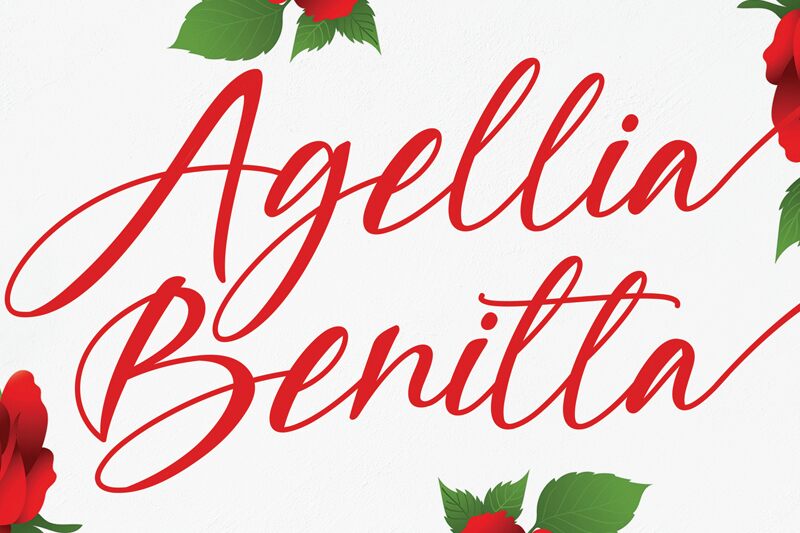
Agellia Benitta
Agellia Benitta, a stunning semi-light handwritten font designed by scratchones, is the perfect addition to any creative project. Its flowing curves and delicate strokes give off an elegant and feminine vibe that's suitable for wedding invitations, greeting cards, and other formal events. However, its playful style also makes it ideal for more casual projects such as branding materials or social media graphics. This versatile font offers a wide range of possibilities with its unique character and charming appeal. Make your message stand out with Agellia Benitta - the semi-light font that's sure to capture attention!
the latest style letters are perfect for wall displays, wedding invitations, social media post logos, advertisements, product packaging, product designs, labels, photography, watermarks, invitations, stationery, and any project that requires taste handwriting.